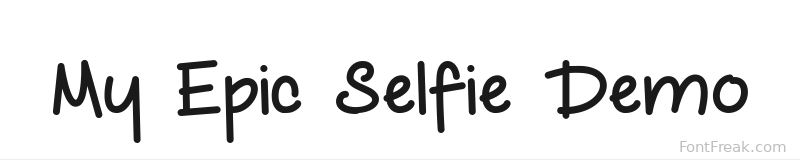
My Epic Selfie Demo
My Epic Selfie Demo by Misti Hammers is a playful display font that captures the essence of modern, casual communication. This font falls within the handwritten category, characterized by its friendly and approachable style. The strokes are uneven, mimicking the natural flow of human handwriting, which adds a personal touch to any design. The weight is medium, with a slight contrast that allows it to stand out without overwhelming the viewer. The spacing is generous, ensuring legibility while maintaining a relaxed aesthetic.
Best suited for creative projects, My Epic Selfie Demo is an excellent choice for wedding invitations, where its whimsical charm can convey joy and celebration. It also works beautifully for social media graphics, making it ideal for content creators looking to add a unique flair to their posts. Additionally, this font can enhance restaurant menus, providing a casual vibe that aligns with modern dining experiences. Event flyers and promotional materials will also benefit from its engaging style, appealing to a wide audience.
The target audience for this font includes graphic designers, small business owners, and content creators seeking to elevate their branding with a distinctive typeface. Its versatility allows it to be used in various contexts while retaining a unique personality.
What sets My Epic Selfie Demo apart is its ability to blend playfulness with professionalism, making it a standout choice for those looking to create memorable designs. The font’s free availability encourages experimentation, allowing users to download and incorporate it into their projects effortlessly. Don't miss the chance to enhance your creative toolkit with the My Epic Selfie Demo font free download, perfect for adding a touch of character to your next design project.